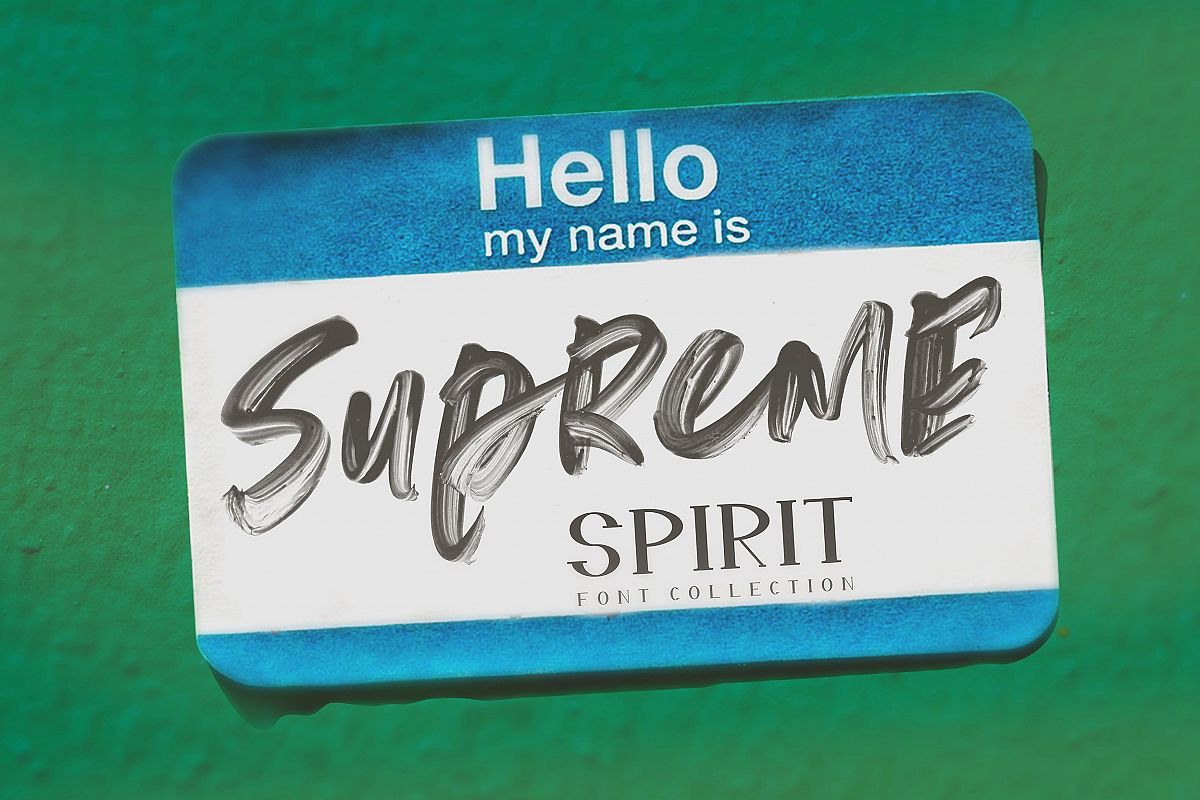
In this project which has been done by using the new font technology, here is the ultra hd SVG typefont that is hand painted in order to make you keep the natural and realistic aesthetic understanding like an artist during your own works.
This project that got its name by our name because its the first and has to be marketable shows you natural brush marks and stains all with the reality in 3 alphabets.
The improvements coming from the last changes in open type svg format and converting hd liquid image to font format could be usable within Photoshop 2017+ and Illustrator 2018.
SUPREME SPIRIT SCRIPT FONT
SUPREME SPIRIT SERIF FONT
SYMBOLS IN OUR SVG
• -!#$%&()*+,-./:;=?@[]^_`{|}~¡¢£¤¥¦§¨«¬®¯°±´¶·¸»¿×÷ˆˇ˘˙˚˛˜˝–—‘’“”„†‡•…‰‹›€∂∏−√≤≥◊ij -
We hope that Supreme Spirit Collection will help you to make great works and you will find great our first work, hopefully.